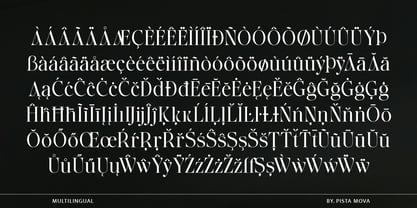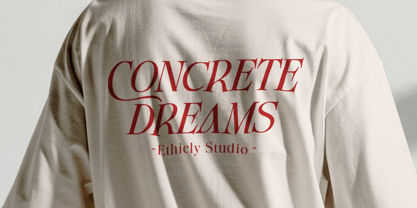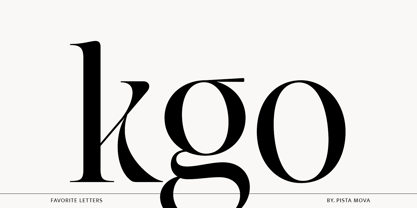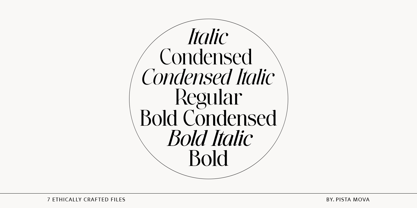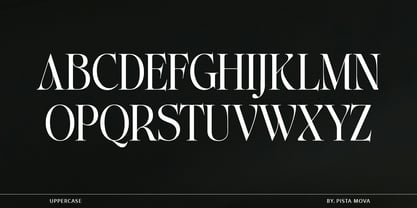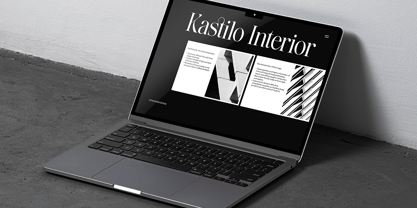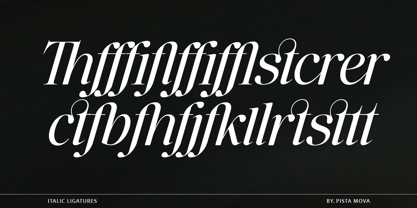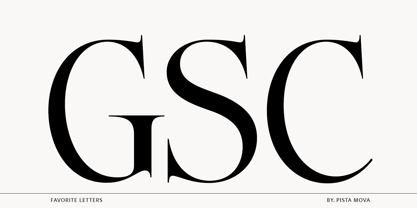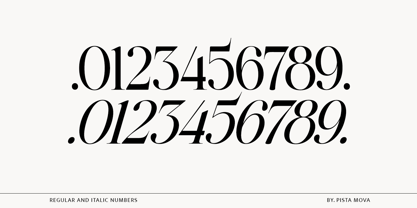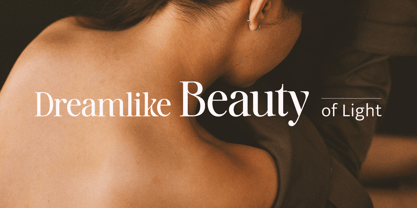
The Ethicly
by Pista Mova
The The Ethicly Font Family was designed by Haikal Juanda and published by Pista Mova. The Ethicly contains 8 styles and family package options.
Introducing The Ethicly: A Typeface for Timeless Elegance
Create a lasting impression with The Ethicly, the perfect blend of classic sophistication and modern flexibility. Designed to captivate, Glisstory's high-contrast strokes and graceful curves bring a luxurious feel to any project.
Whether you're designing a premium brand identity, an elegant editorial layout, or a compelling website, The Ethicly ensures your design stands out. Each character is carefully shaped for strength, balance, and legibility, while its true italics add fluidity and visual interest, making your text effortlessly stylish.
Why Choose The Ethicly?
Instant Elegance: Clean lines and refined proportions create a timeless look.
Premium OpenType Features: Unleash your creative potential with ligatures and advanced typographic controls.
Global Reach: Support for over 90 languages ​​ensures clear communication worldwide.
True Italic Perfection: A meticulously designed italic style that perfectly complements upright characters.
Designed for:
Luxury Brands & Logos – Enhance your brand with the distinctive charm of Glisstory.
Editorial Excellence – Perfect for magazines, books, and newspapers that want a touch of sophistication.
Web & Digital – Optimized for clarity and impact on all screen sizes.
Premium Packaging – Add a touch of class to product labels, invitations, and luxury stationery.